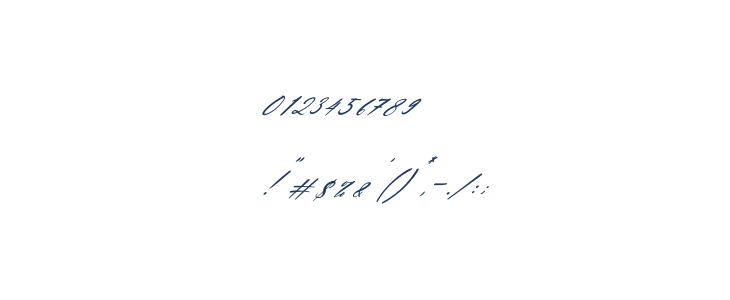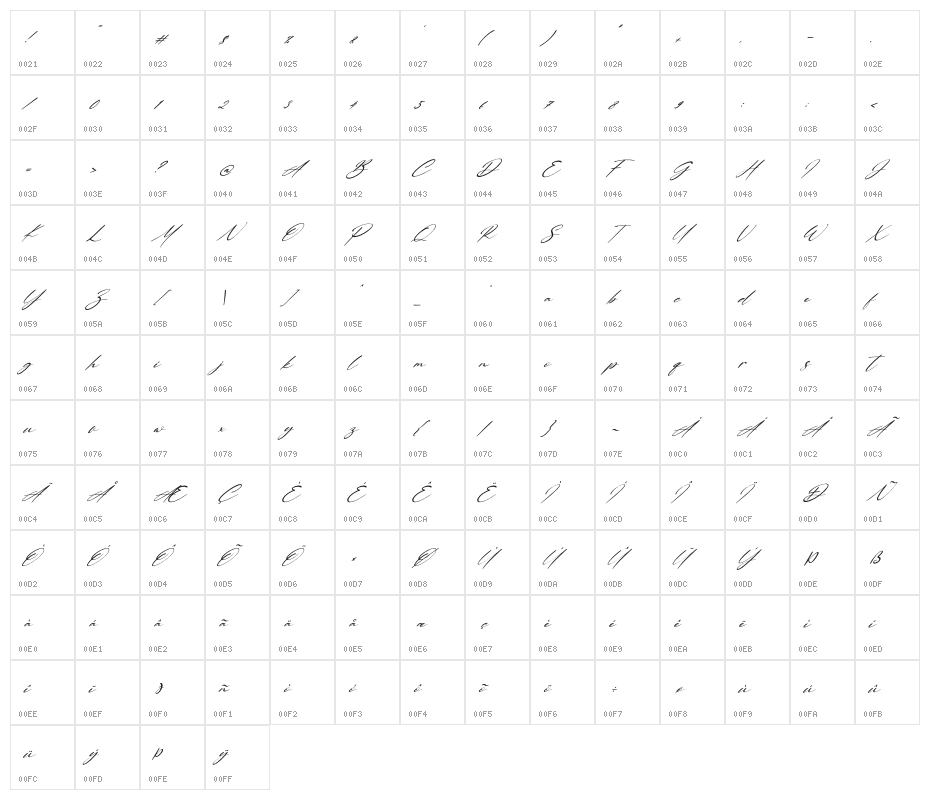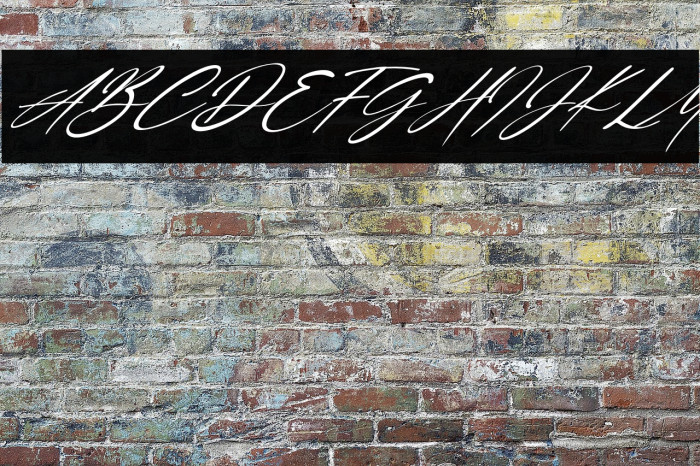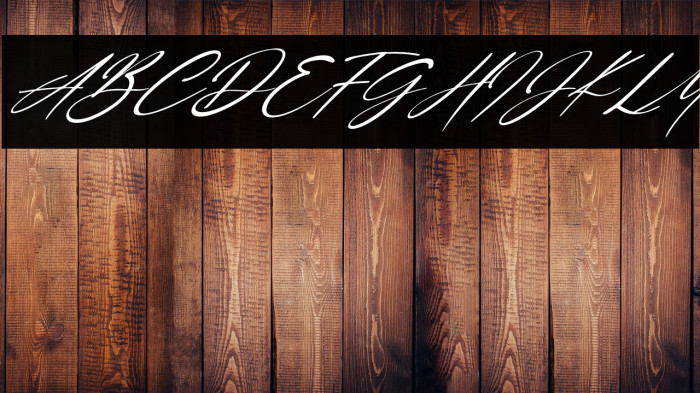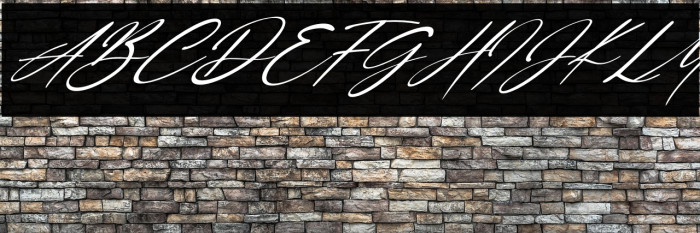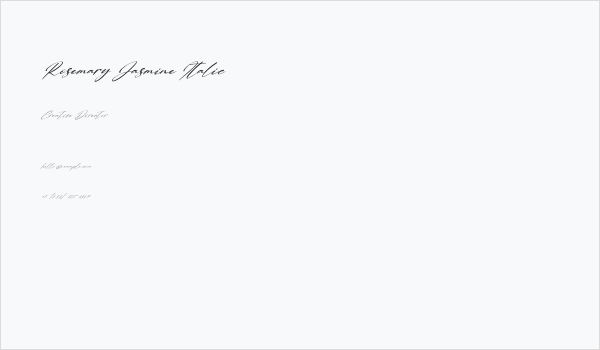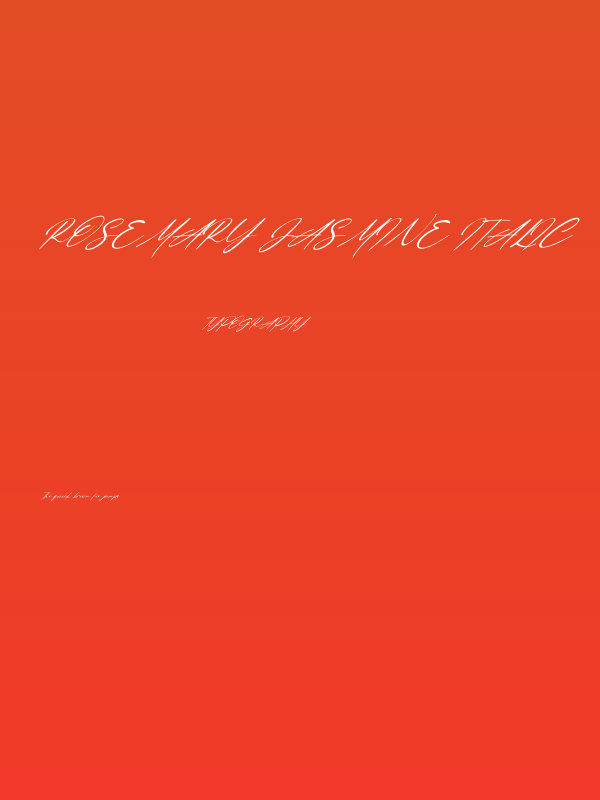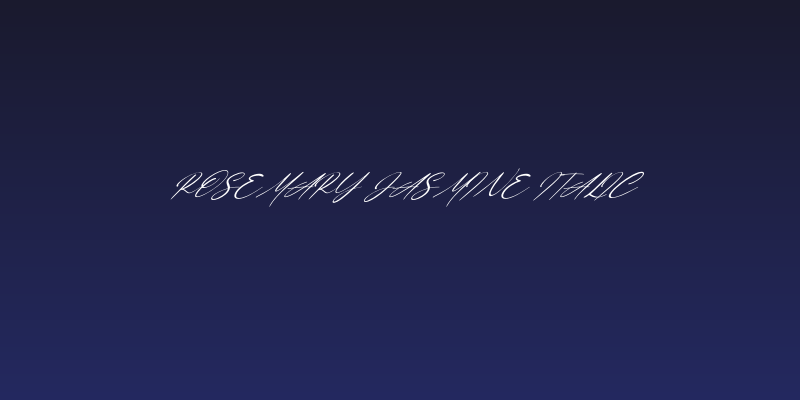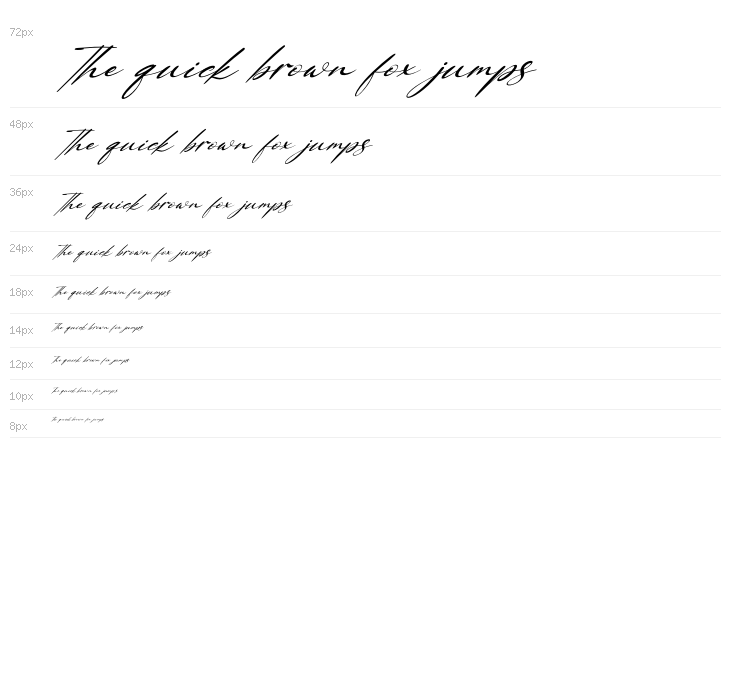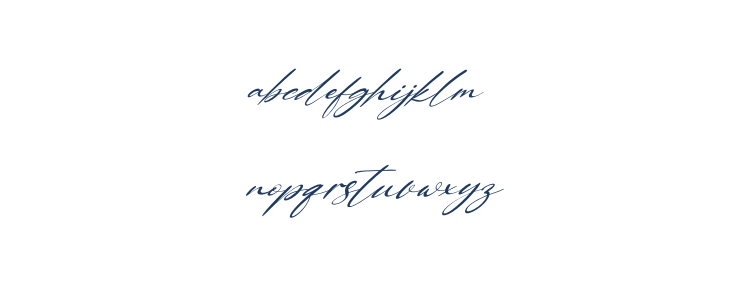
Rosemary Jasmine Italic Font
Rosemary Jasmine Italic Description
This elegant script font features a flowing, cursive style with a distinct italic slant, giving it a graceful and sophisticated appearance. The characters are connected, mimicking natural handwriting with a smooth, fluid motion. The uppercase letters are ornate and slightly larger, while the lowercase letters maintain a consistent size, enhancing readability. The numbers and special characters are designed to match the overall aesthetic, ensuring a cohesive look across all text. This font's delicate strokes and high contrast between thick and thin lines add to its refined and stylish nature.
| Proposed Projects | Ideal for wedding invitations, elegant branding, personal signatures, and artistic projects requiring a touch of sophistication. |